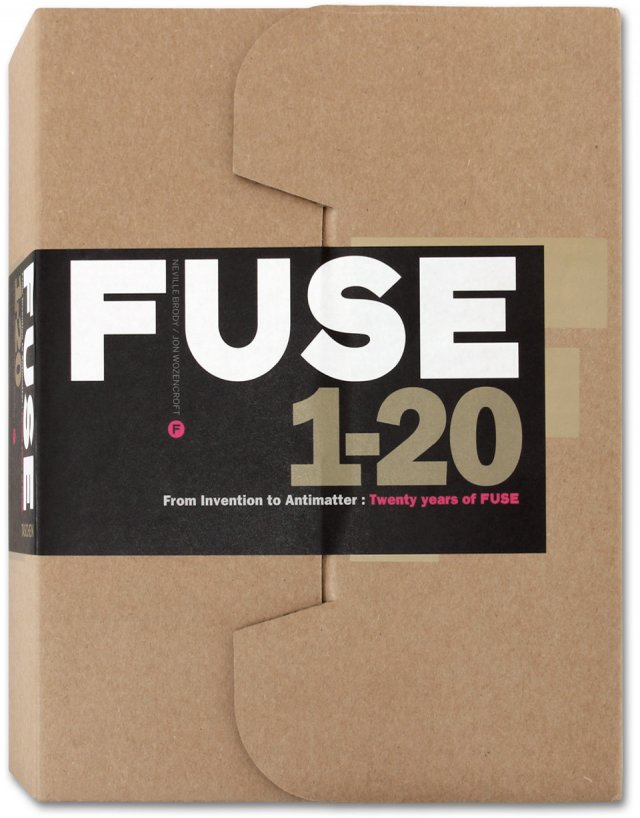
FUSE 1–20
Ideas that change design
Launched by Neville Brody and Jon Wozencroft in 1991, FUSE was the ground-breaking publication that took design and typography into radically new and unforeseen spaces. The major influence of its revolutionary and experimental approach to typographic language reverberates still, and today—twenty years after its launch—the explorations carried out by some of the most famous and influential names in the industry stand out as futuristic and ahead of their time.
Taking the alphabet as its base, and enabled by the advent of digital design, FUSE became a laboratory for new ideas and risks, as well as a hothouse of new thinking. Published over twenty editions, each issue was themed and included both fonts and posters by specially-commissioned collaborators, all of which are on show here.
To commemorate the release of issue 20, TASCHEN brings you a complete compendium of all the issues. Exclusive to this publication are FUSE19 and FUSE20, two newly-commissioned and never-before published issues, in the form of 10 A2 posters and 24 downloadable fonts, making this boxed edition a collector’s item. This is the legacy created by the best contemporary thinkers on typeface design: the list of contributors to FUSE reads like a who’s who of typographic design, from Erik Spiekermann to Stefan Sagmeister, Peter Saville, Jonathan Barnbrook and Tobias Frere-Jones, plus many more. Editorial contributors include Adrian Shaughnessy and Jon Wozencroft.
- A compilation of the work of the most innovative and renowned typographic designers of the last two decades
- Complete out-of-print issues 1 to 18 compiled in a book designed by Neville Brody